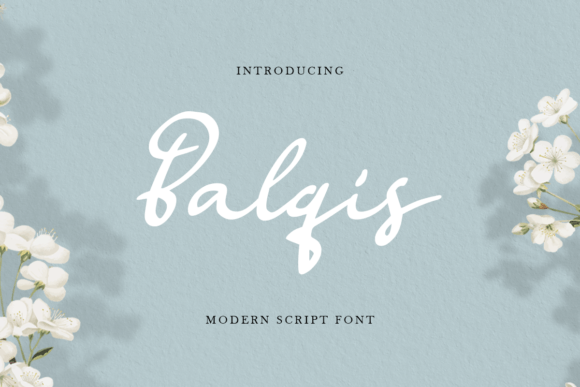
Introducing Balqis Font: The Epitome of Elegance and Femininity
In the realm of typography, few fonts manage to capture the essence of elegance, modernity, and femininity as effectively as Balqis Font. This signature handwritten font is a masterpiece of design, boasting an authentic, elegant, and modern aesthetic that is sure to elevate any project to new heights. Crafted with meticulous attention to detail, Balqis Font is specifically designed for authentic signature projects, making it an ideal choice for branding, social media, logos, and a myriad of other applications.
The Genesis of Balqis Font
The creation of Balqis Font is a story of passion and dedication. The designers behind this exquisite font sought to craft a typeface that would embody the perfect blend of traditional and modern elements. The result is a font that exudes sophistication and poise, making it an excellent choice for those seeking to add a touch of elegance to their projects.
Balqis Font is more than just a collection of letters; it is an experience. Each character is carefully designed to convey a sense of refinement and luxury, making it perfect for high-end branding, fashion, and beauty applications. The font’s unique blend of classic and modern elements ensures that it stands out from the crowd, allowing designers to create stunning visual content that captivates audiences.
Key Features of Balqis Font
- Authentic and Elegant Design: Balqis Font boasts an authentic and elegant design that is sure to impress. Its unique character set is carefully crafted to convey a sense of sophistication and refinement.
- Modern and Feminine Style: This font’s modern and feminine style makes it an excellent choice for projects that require a touch of elegance and poise.
- Handwritten with Love: Balqis Font is a handwritten font, crafted with love and care to ensure that each character is unique and full of personality.
- Versatile and Highly Adaptable: This font is highly adaptable and can be used on a wide range of projects, from branding and social media to logos and more.
What Makes Balqis Font Stand Out?
In a world where fonts are a dime a dozen, Balqis Font stands out from the crowd. Its unique blend of classic and modern elements, combined with its elegant and feminine style, makes it a true standout. Here are a few reasons why Balqis Font is a cut above the rest:
- Unparalleled Elegance: Balqis Font exudes elegance and sophistication, making it perfect for high-end projects.
- Feminine Charm: This font’s feminine style is sure to captivate audiences and add a touch of warmth to any project.
- Authenticity: Balqis Font is crafted with authenticity in mind, ensuring that each character is unique and full of personality.
How to Use Balqis Font
Balqis Font is incredibly versatile and can be used on a wide range of projects. Here are a few ideas to get you started:
- Branding: Use Balqis Font to create stunning brand identities that exude elegance and sophistication.
- Social Media: Add a touch of elegance to your social media content with Balqis Font.
- Logos: Create stunning logos that showcase your brand’s personality with Balqis Font.
- Packaging: Use Balqis Font to create beautiful packaging designs that stand out on store shelves.
Tips and Tricks for Getting the Most Out of Balqis Font
To get the most out of Balqis Font, here are a few tips and tricks to keep in mind:
- Experiment with Different Sizes: Balqis Font looks stunning in a variety of sizes, so don’t be afraid to experiment.
- Pair it with Other Fonts: Balqis Font pairs beautifully with other fonts, so try combining it with different typefaces to create stunning visual content.
- Use it to Create Contrast: Use Balqis Font to create contrast in your designs and add visual interest.
In conclusion, Balqis Font is a true masterpiece of typography. Its elegant, modern, and feminine style makes it an excellent choice for a wide range of projects. Whether you’re looking to create stunning brand identities, elegant social media content, or beautiful logos, Balqis Font is the perfect choice. So why wait? Download Balqis Font today and experience the power of elegant typography for yourself.